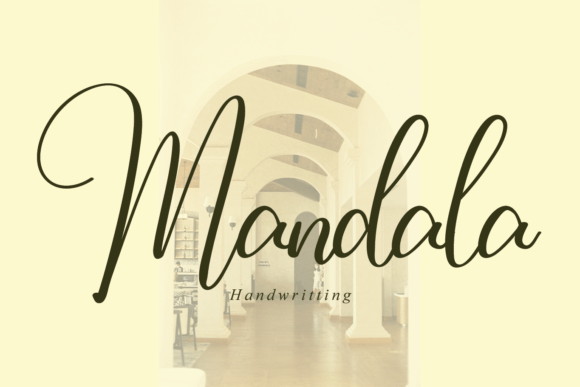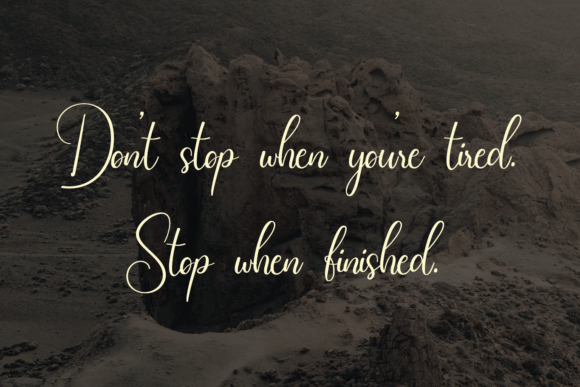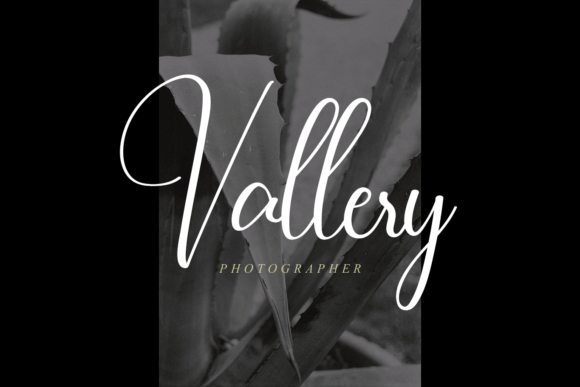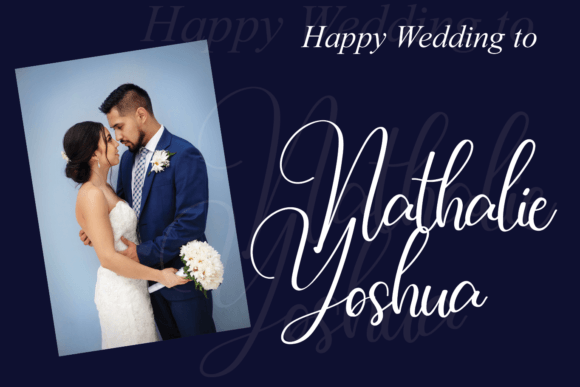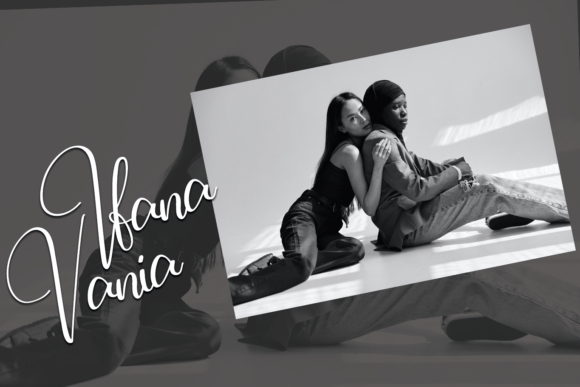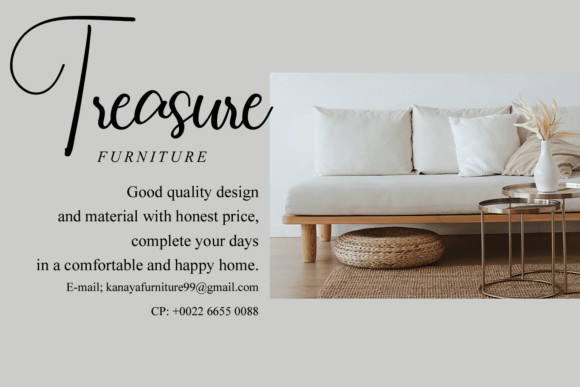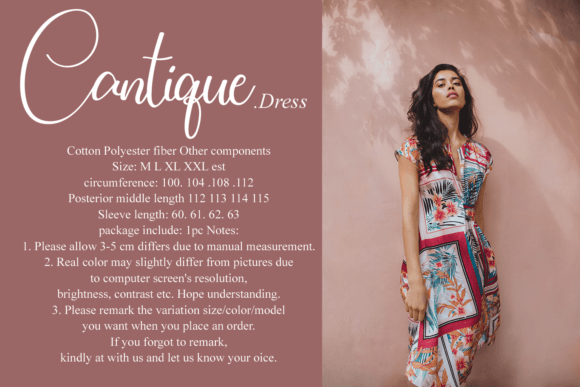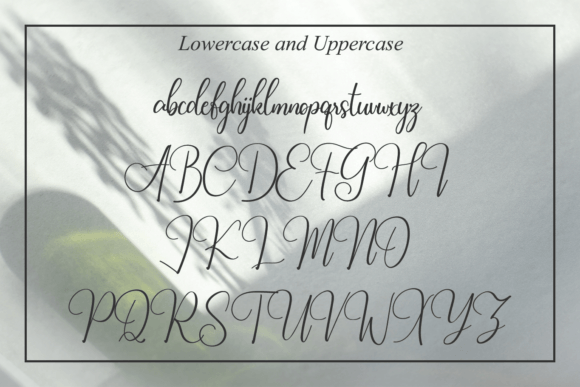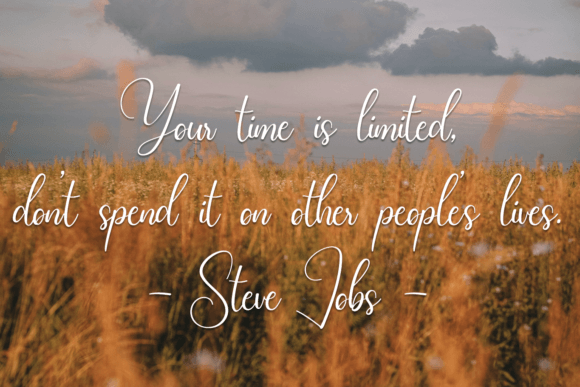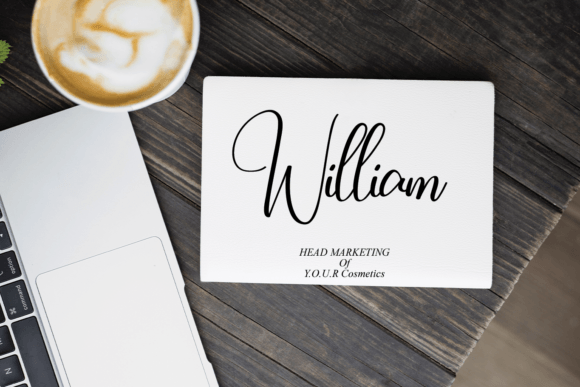
Mandala Font
About Mandala Font
Introducing “Mandala” – Your Thin Lettered Handwritten Font for a Contemporary and Classy Touch!
“Mandala” isn’t just a font; it’s a gracefully thin lettered handwritten typeface expertly crafted to become a cherished favorite. Whether you’re working on modern branding projects, creating elegant wedding stationery, designing clean and minimalist logos, curating sophisticated magazine layouts, developing fresh and contemporary websites, or embarking on any creative endeavor, “Mandala” is the perfect choice to infuse a sense of contemporary class.
With “Mandala,” you gain access to a font that beautifully balances the influences of classy calligraphy with the freshness of contemporary design. Its thin lettering style adds an element of sophistication and a touch of modernity to your text, ensuring that your content stands out beautifully across various mediums.
Imagine using “Mandala” to create modern and refined branding materials that exude class and sophistication, crafting wedding stationery that captivates with its elegance, designing clean and minimalist logos that leave a lasting impression, creating magazine layouts that inspire and inform, developing websites with typography that reflects contemporary style, or engaging in any creative endeavor where a contemporary and classy touch is desired. This font’s versatility and thin lettered charm make it an ideal choice for a wide array of design projects.
Whether you’re an experienced designer seeking a thin lettered handwritten font or someone new to design looking to infuse contemporary class into your work, “Mandala” is your ultimate typeface.